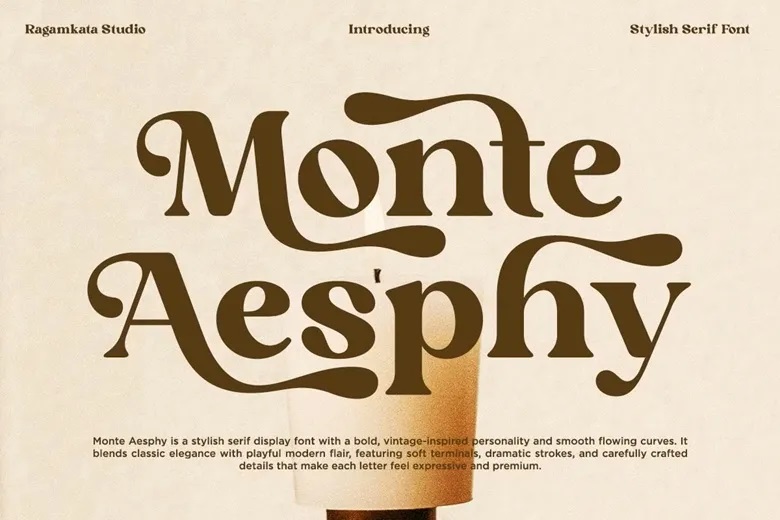
Monte Aesphy Font
The Monte Aesphy font is a stylish serif font that combines bold vintage inspiration with contemporary elegance. With its dramatic strokes, smooth flowing curves and soft terminal details, it offers a polished, yet playful character to any craft. Each letterform is thoughtfully designed to look expressive, timeless and luxurious making it ideal for standout typography that grabs attention.
Use it in branding, luxury packaging, logos, fashion labels, editorial layouts, posters magazine headlines, wedding invitations, book covers, quotes, social media graphics and café or restaurant branding.
Monte Aesphy Serif Font